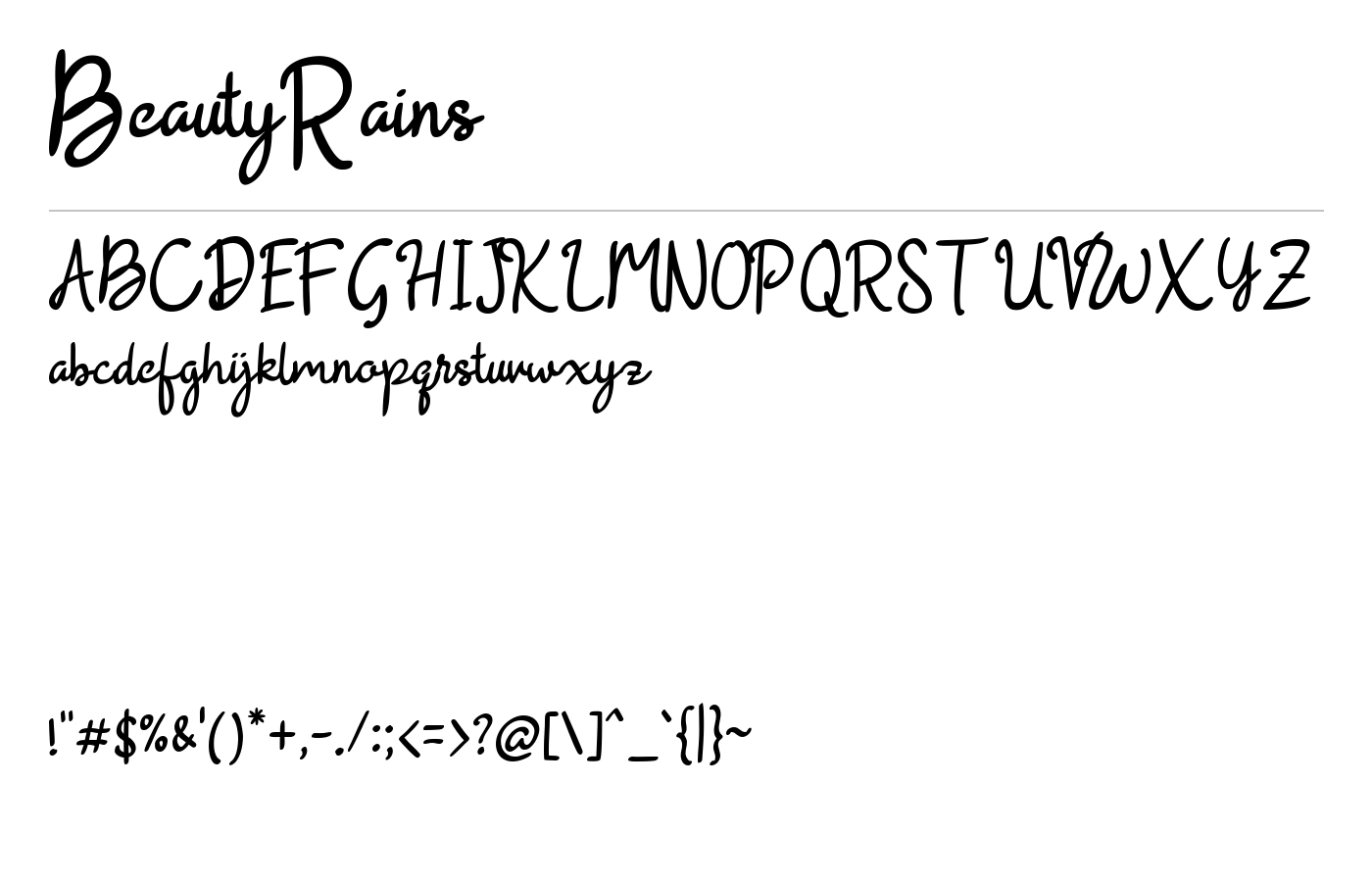
BeautyRains is a playful and lively script font with a hand-drawn feel, featuring smooth, rounded strokes and moderate contrast that give it a friendly and approachable character. Its upright, slightly condensed letterforms and casual style make it ideal for branding, invitations, and creative projects seeking a warm, personal touch. This font works well for headlines and display uses where a charming, handcrafted vibe is desired.
BeautyRains Font
About BeautyRains Font
| Font family | BeautyRains Font |
| Designer | Lukman Hidayat "Viaction Type Co" |